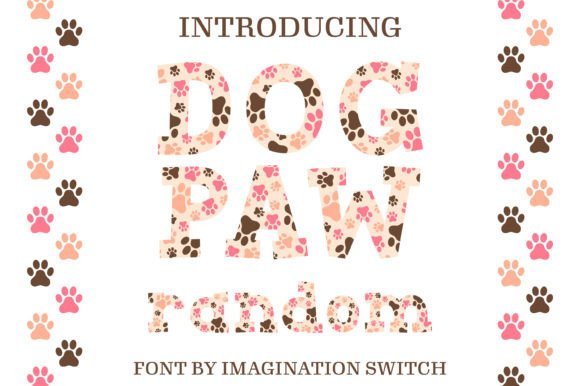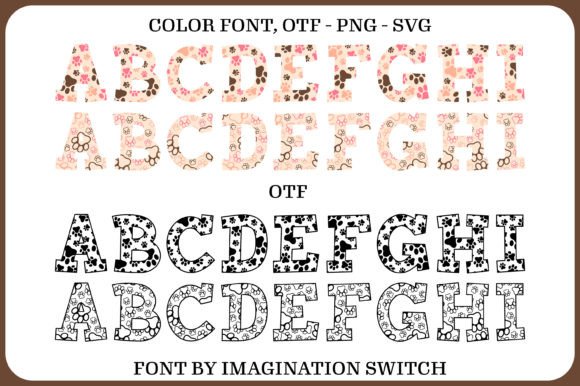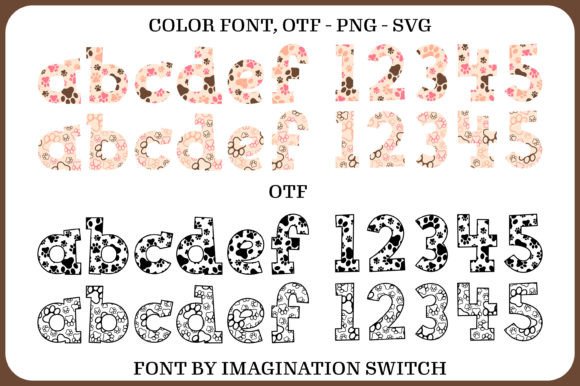
The Power of Uniqueness in Design
Have you ever been stuck in a creative rut, searching for the perfect font to elevate your design project? You know that moment when everything clicks, and you stumble upon the perfect combination of style and functionality? That’s exactly what happens when you discover the Dog Paw Random Font.
This captivating typographic creation is designed to add a pop of color and uniqueness to your designs. With a complete set of characters, including uppercase, lowercase, and numbers, the Dog Paw Random Font provides flexibility across various types of projects. Its carefully chosen colors add a mesmerizing visual touch, making each word and number stand out. Whether you’re working on print designs, web designs, or promotional materials, this font is an ideal choice for expressing your creativity and crafting unforgettable designs.
Dog Paw Random Font Key Features
- Font Family: Dog Paw Random Font
- Unique Characteristic: Randomized paw print patterns for a unique and playful look
Dog Paw Random Font Review
At first glance, Dog Paw Random Font appears to be a quirky and playful addition to any design project. ✨ Its random, paw-like characters add a touch of whimsy and can be used effectively to convey a lighthearted or humorous tone. The font is also quite versatile, working well in a variety of contexts, from digital signage to social media graphics.
However, there are some limitations to consider. ⚠️ The font’s randomness can also make it difficult to read at larger sizes or in certain contexts, where the lack of clear structure can lead to visual noise. Additionally, the font may not be suitable for projects that require a more professional or formal tone.
Overall, I would recommend Dog Paw Random Font for designers looking to add a touch of personality to their projects. While it may not be suitable for every project, it can be a fun and effective choice for those that require a lighthearted or humorous tone.
- ✨ Quirky and playful addition to any design project
- ✨ Versatile and can be used in a variety of contexts
- ⚠️ Can be difficult to read at larger sizes or in certain contexts
- ⚠️ May not be suitable for projects that require a professional or formal tone
Some tips for getting the most out of Dog Paw Random Font include:
- Use Dog Paw Random Font for creative projects, such as invitations and greeting cards.
- Combine Dog Paw Random Font with other creative elements, such as illustrations and graphics.